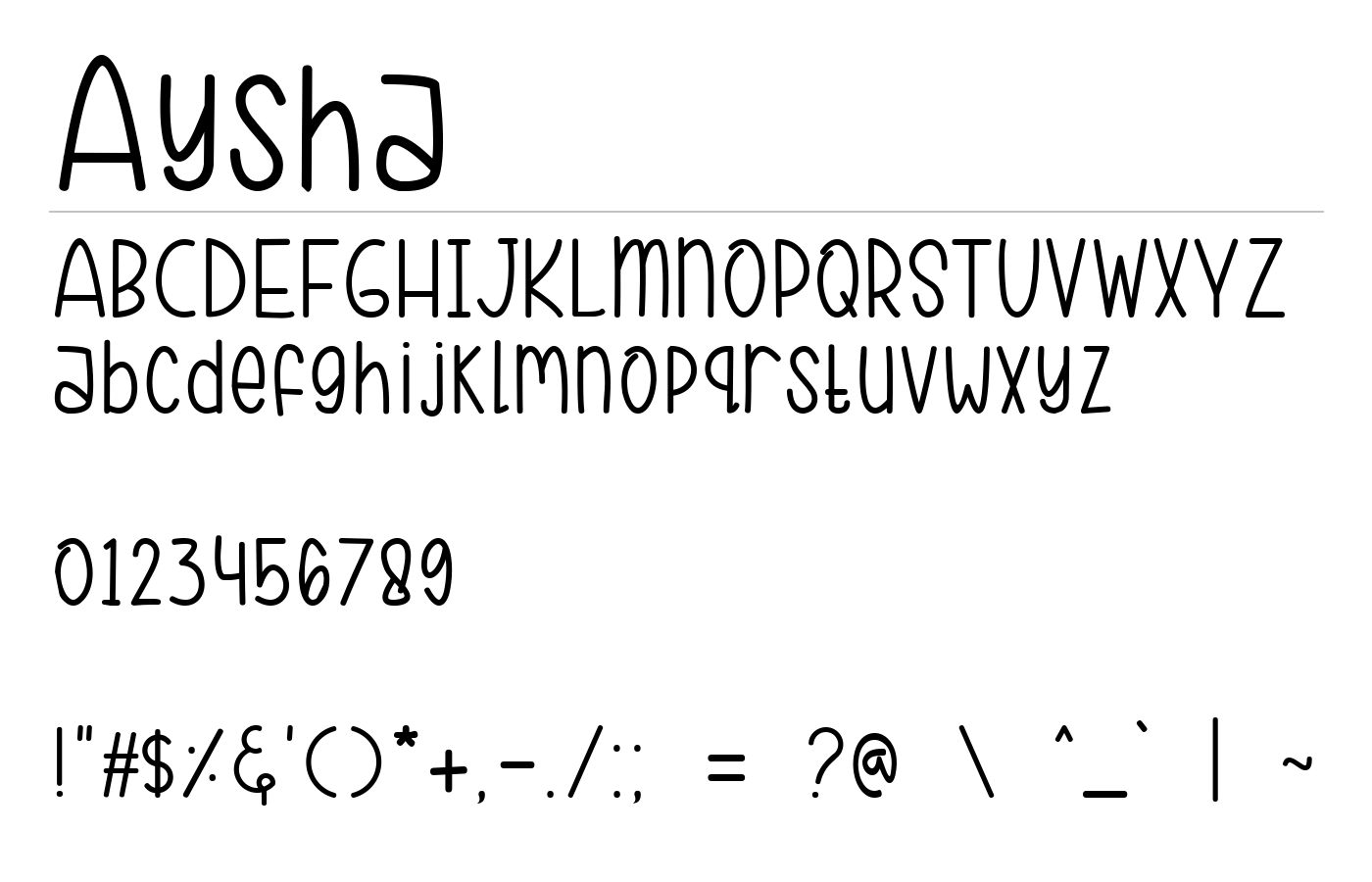
Aysha is a playful and casual sans serif font characterized by its tall, narrow letterforms and slightly irregular, hand-drawn appearance. Its light weight and simple strokes give it an approachable, friendly personality, making it perfect for informal branding, children's content, or creative projects seeking a whimsical and modern touch. This font works well in headlines and display text where a fun, personal vibe is desired.
Aysha Font
About Aysha Font